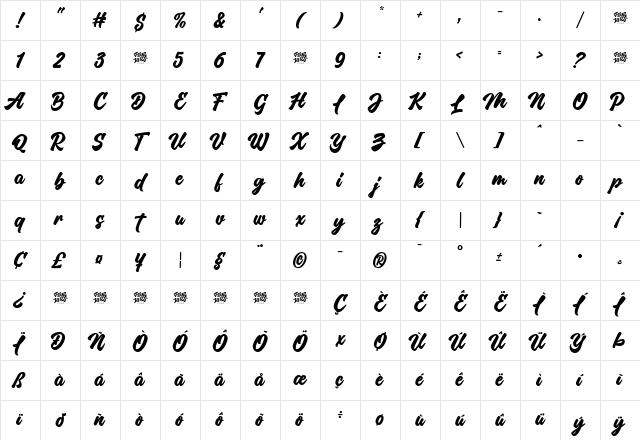
Million Orcids Regular Free Font
Million Orcids Regular
Foundry: Four Lines Std.
Designer: Zain Fahroni
Design Context for Million Orcids
Million Orcids is a composed and adaptable typeface that performs quietly and consistently across a wide range of design contexts.